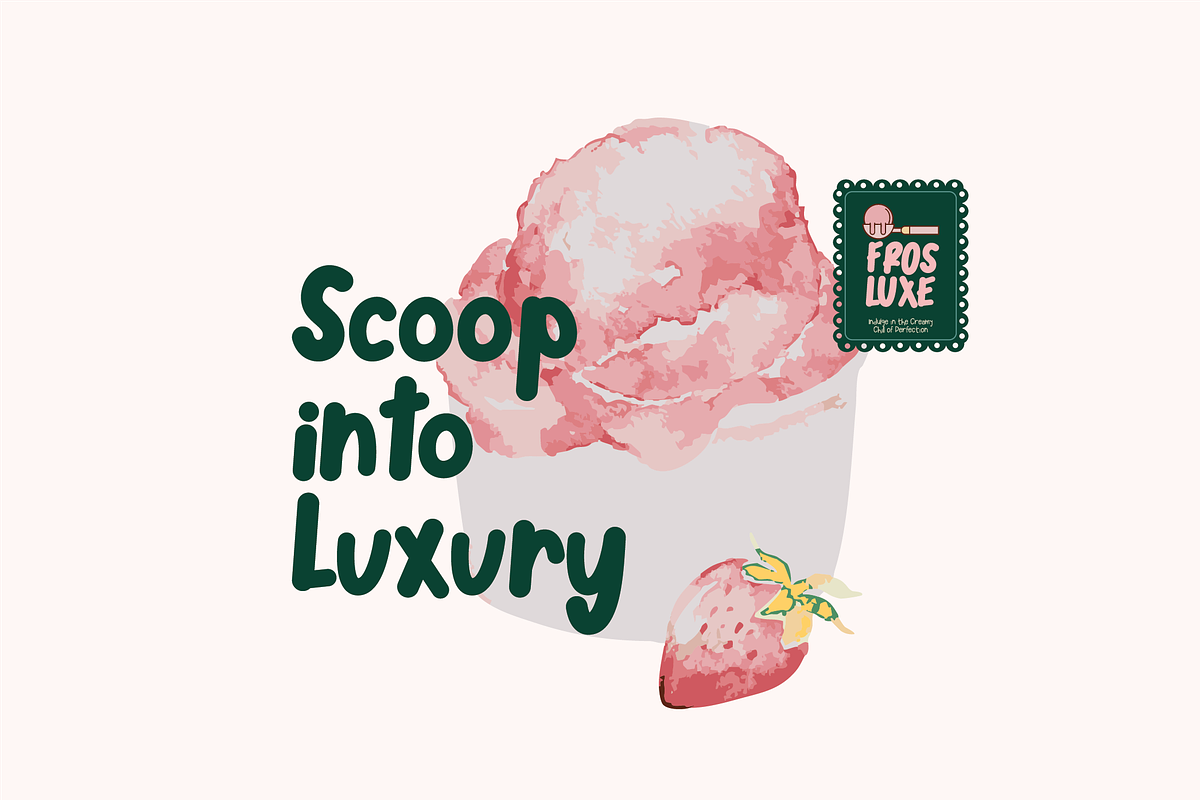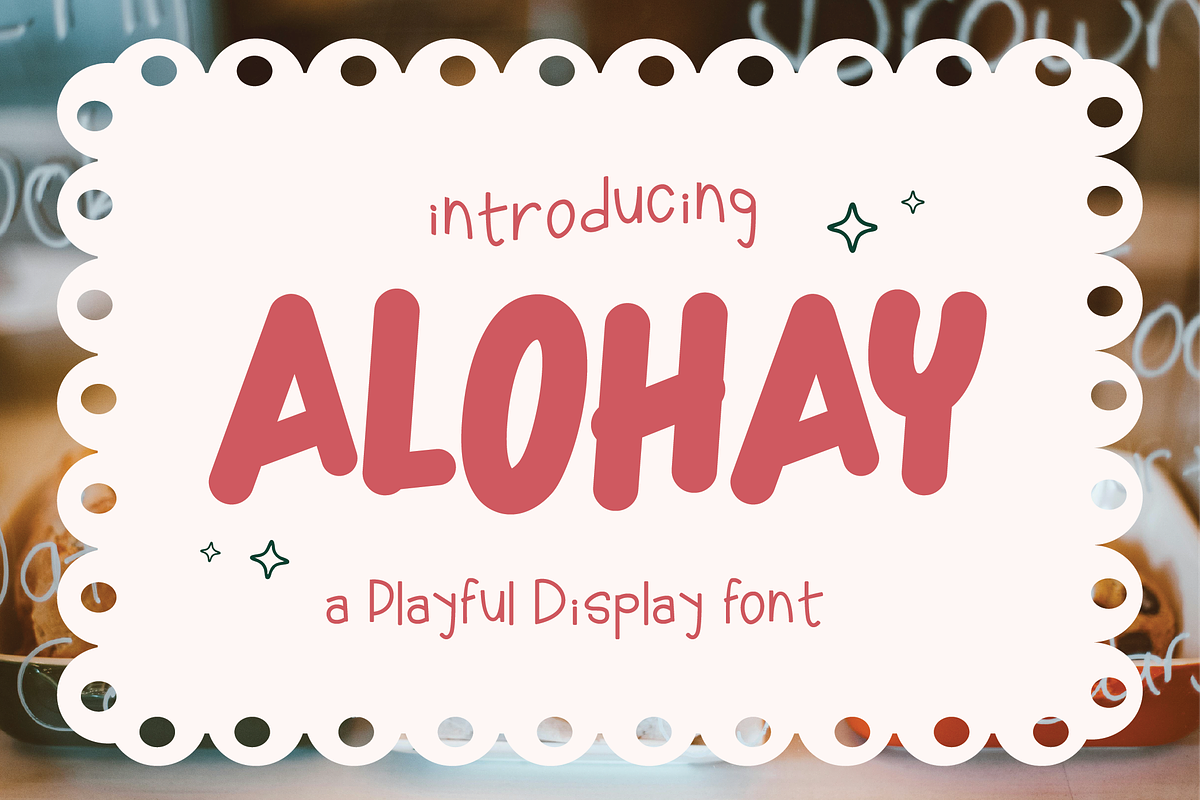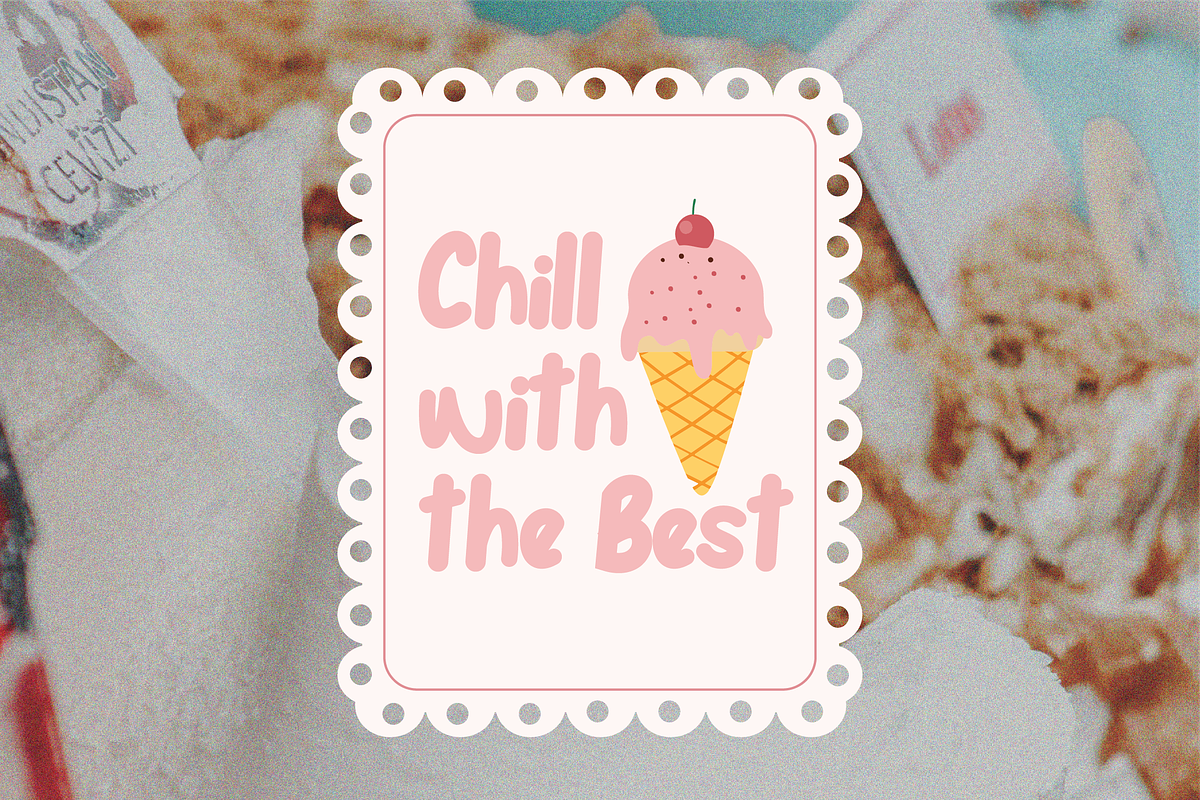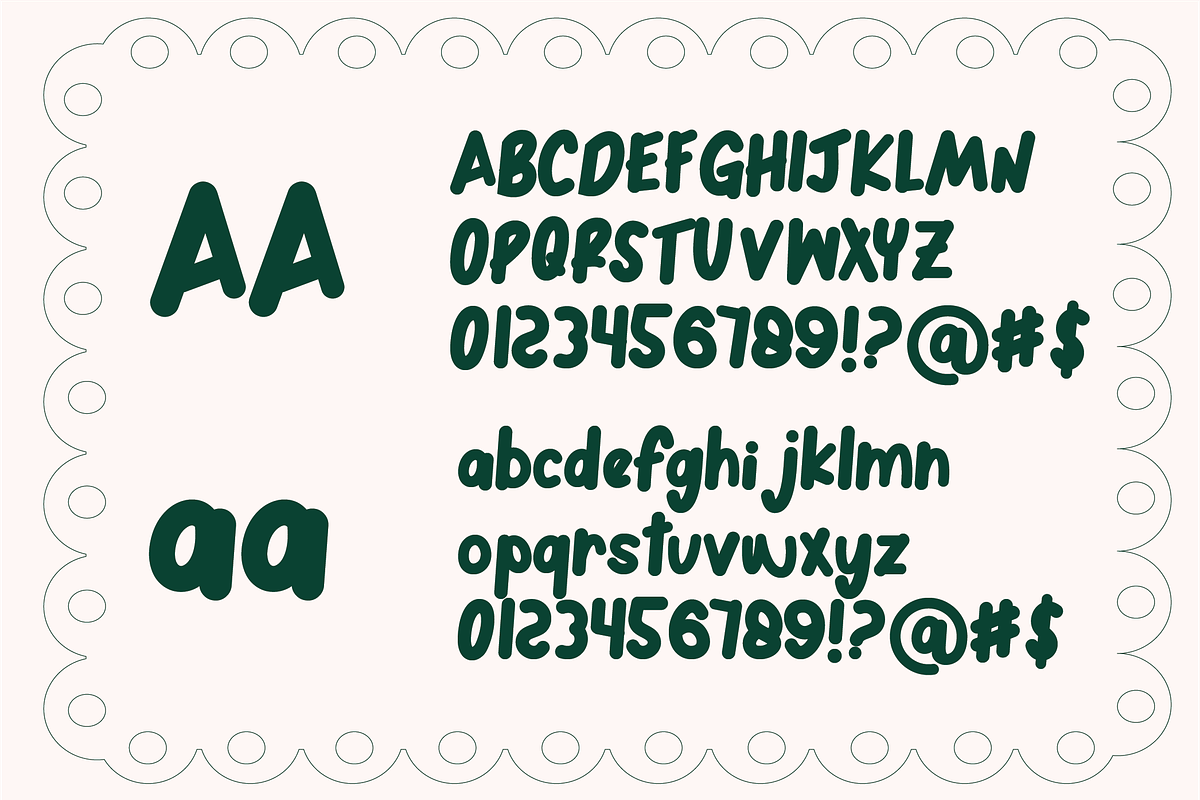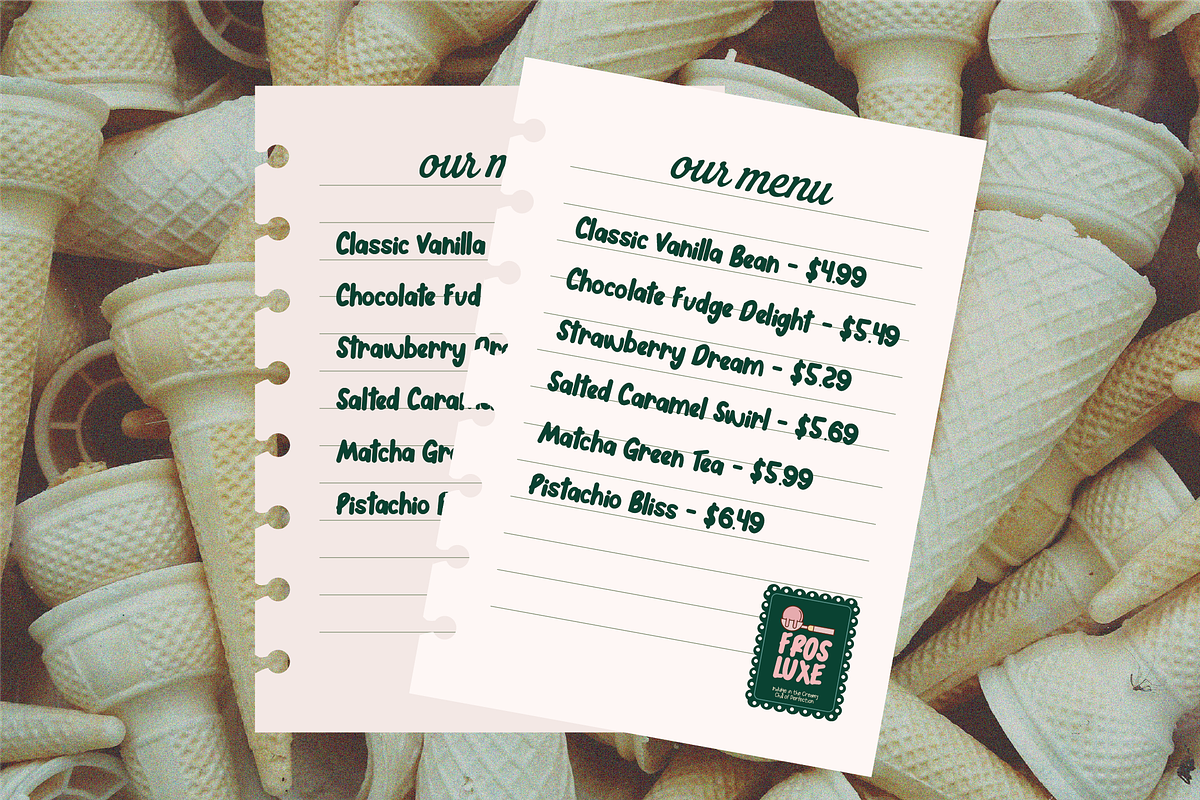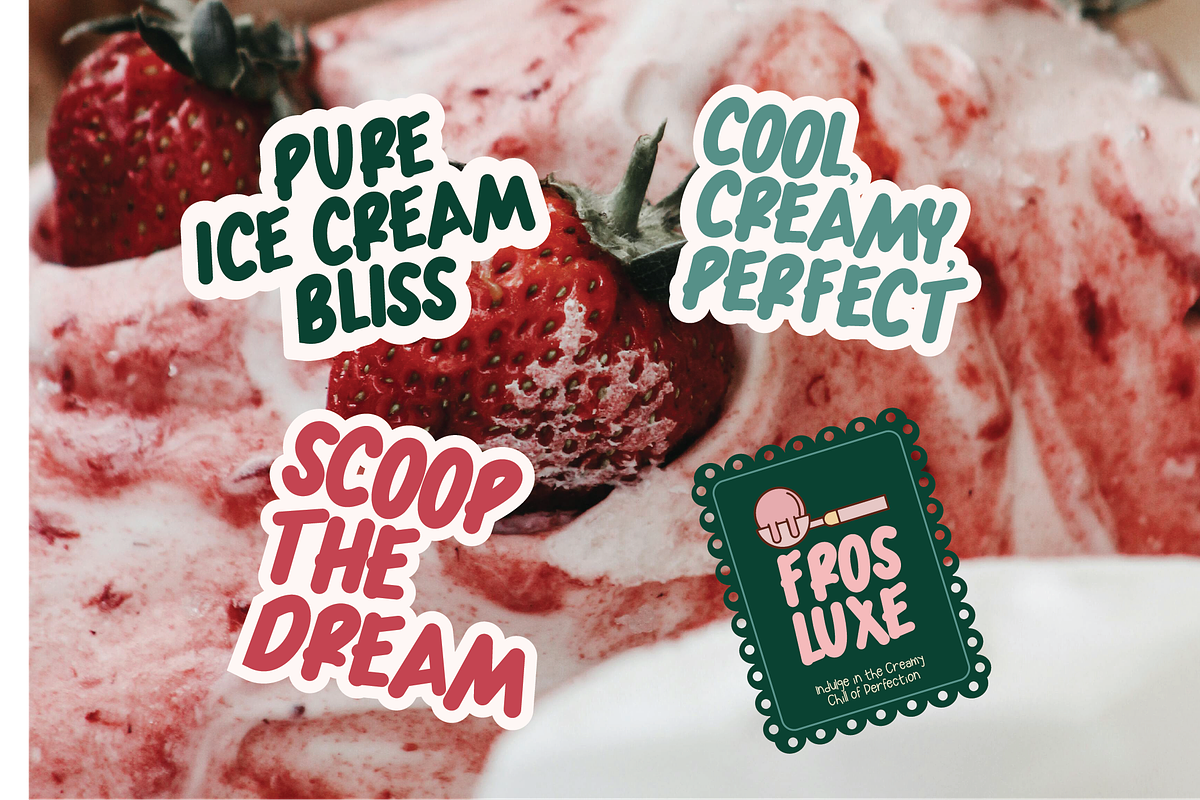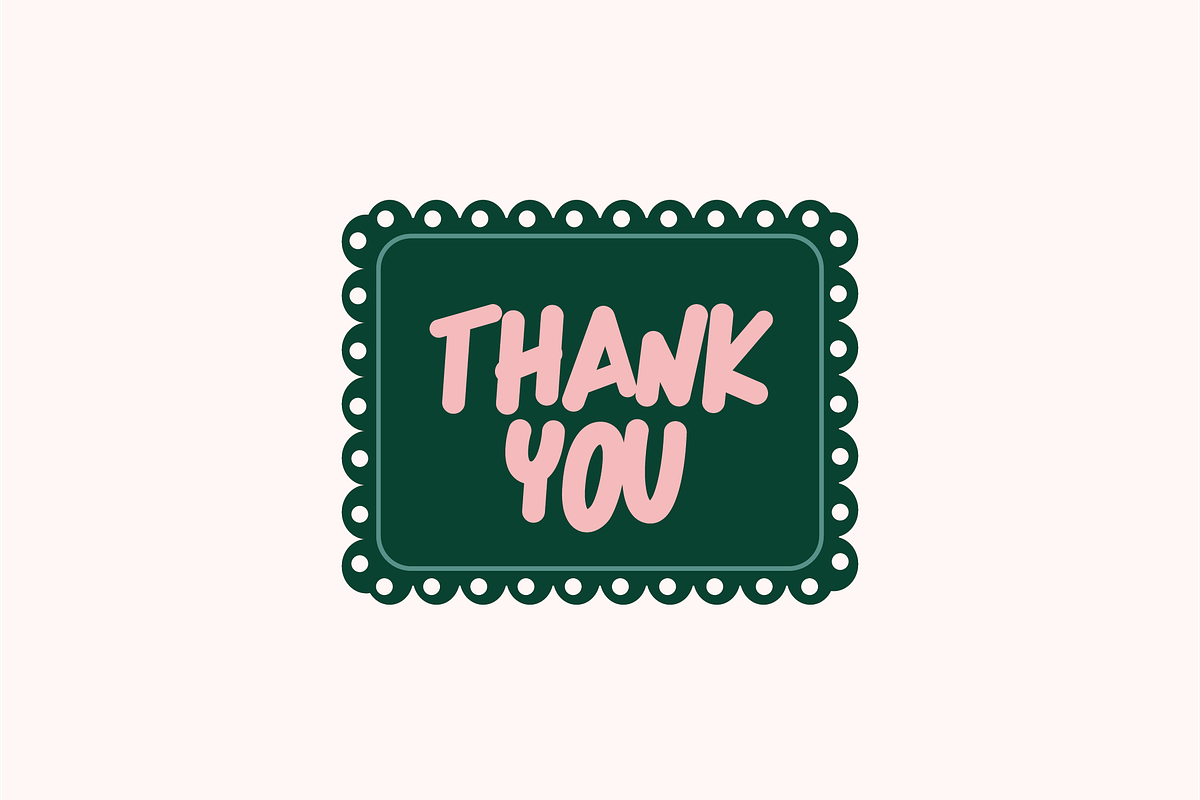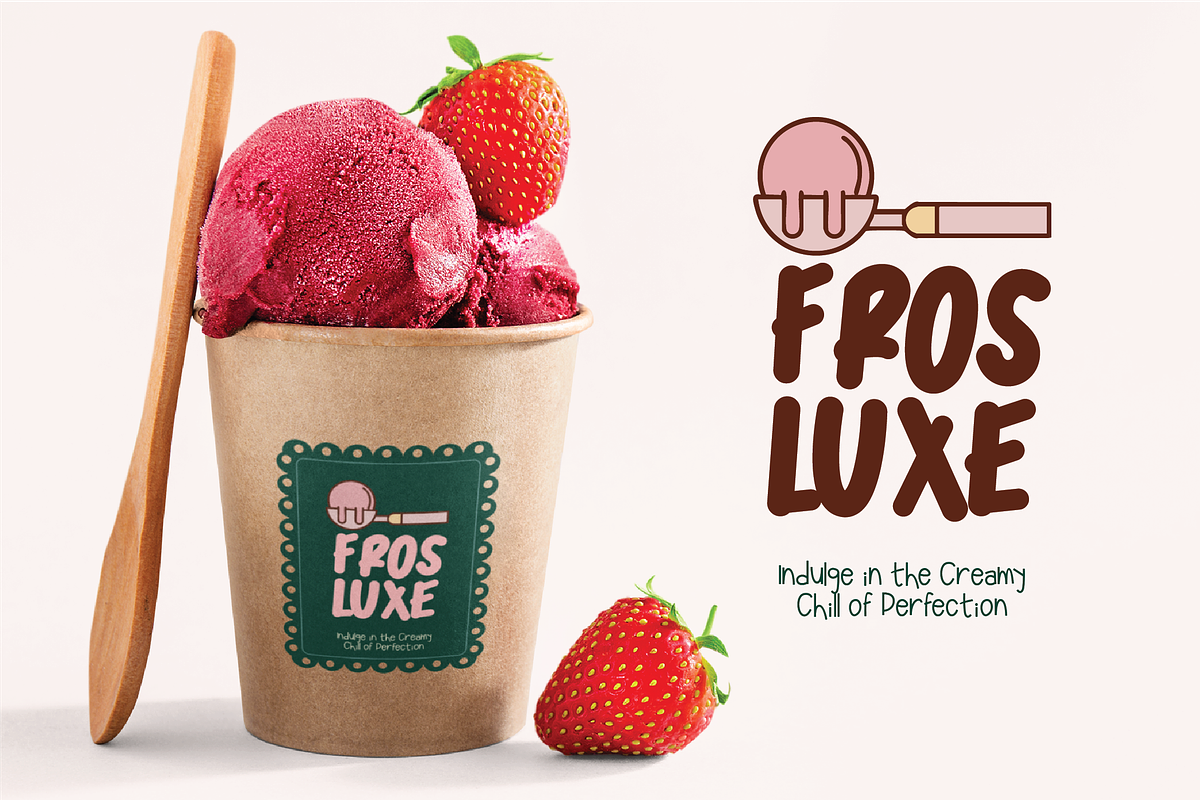
Alohay - Playful Display Font
Alohay This font has a bold, rounded, and friendly style with a slightly playful energy. The strokes are thick and even, giving the letters a solid and approachable appearance. Each character has smooth curves and subtle variations that make the text look lively rather than rigid.